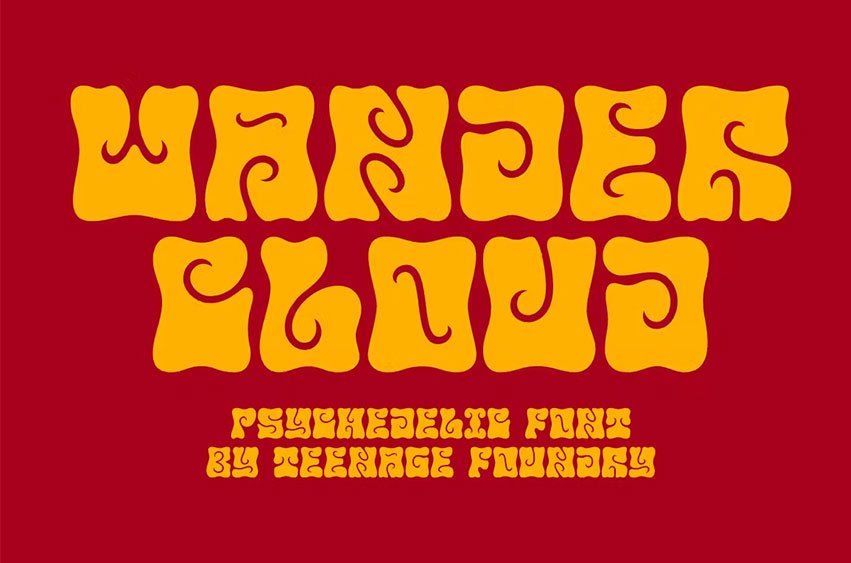
TF Wander Cloud Font display typeface fonts – unique and innovative designs that are sure to make your project stand out! Each letter in this font is square, with elegant cuts that give the letters shape.
This font is perfect for anyone looking to add a touch of modern elegance to their designs. Our typeface display fonts are designed with precision and attention to detail, ensuring that each letter is perfectly balanced and easy to read. The square shape of each letter gives the font a modern and minimalist feel, while the cuts add an extra layer of sophistication and elegance